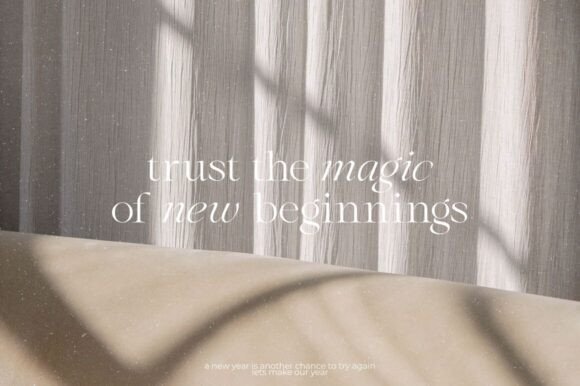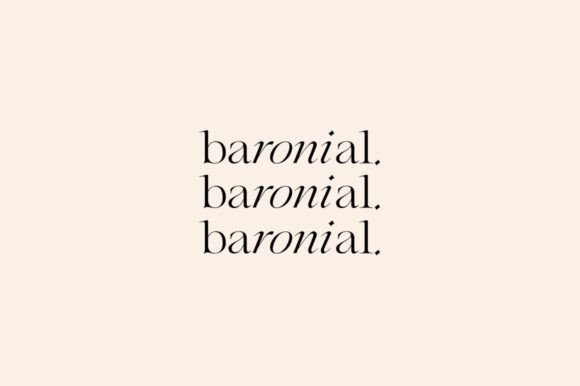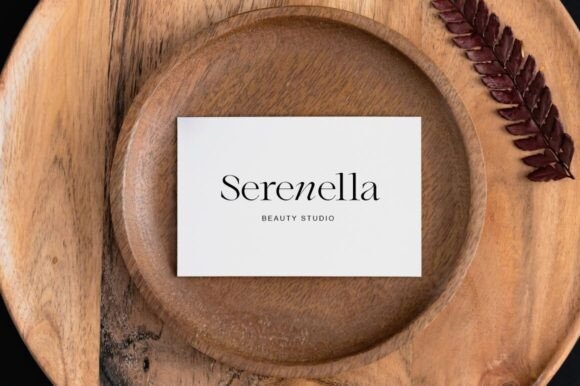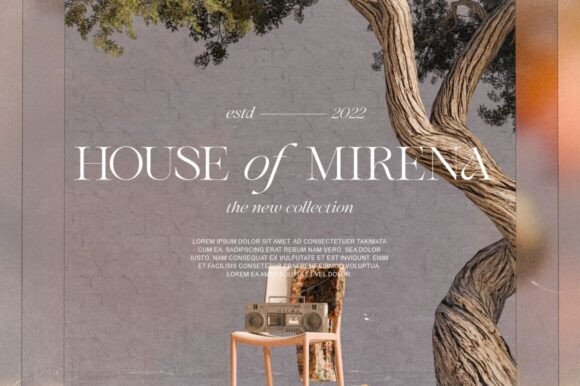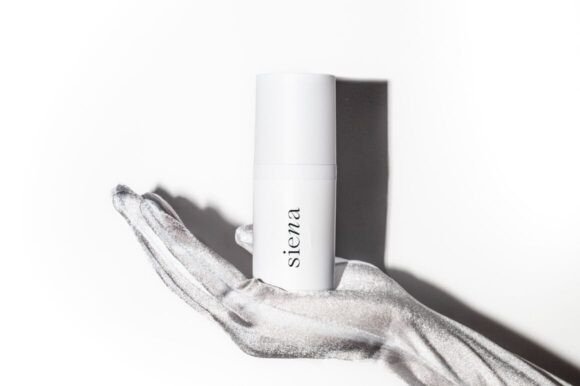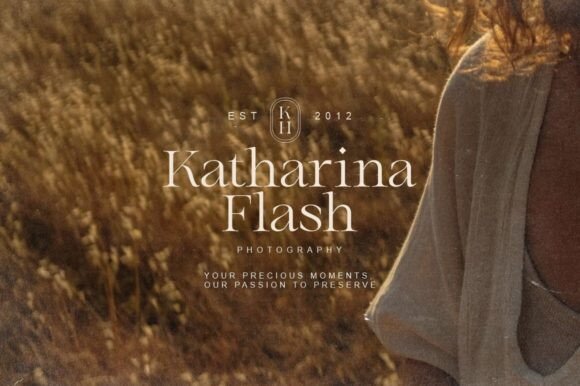
Introducing Araline Font: The Perfect Blend of Classic Charm and Contemporary Style
In the world of typography, fonts play a crucial role in conveying the tone and personality of a brand or design. For designers and crafters, finding the right font can make all the difference in creating visually stunning and effective designs. If you’re on the hunt for a font that exudes elegance, sophistication, and versatility, look no further than Araline Font. In this article, we’ll explore the features and benefits of Araline Font, and why it’s the perfect choice for your next design project.
What is Araline Font?
Araline is a modern serif typeface that seamlessly blends classic charm with contemporary style. This beautiful font is designed to add a touch of elegance and sophistication to any design project. With its classic serif features and modern twist, Araline Font is perfect for designers who want to create unique and visually appealing designs.
Key Features of Araline Font
Araline Font comes with a range of features that make it an ideal choice for designers and crafters. Some of its key features include:
- Italic Version: Araline Font is equipped with an italic version, which adds an extra layer of elegance and sophistication to your designs. The italic version makes the font perfect for creating eye-catching headlines, titles, and emphasis.
- Serif Typeface: Araline is a serif typeface, which means it features small lines or flourishes at the ends of the letters. This classic feature adds a touch of tradition and sophistication to your designs.
- Versatility: Araline Font is incredibly versatile and can be used for a wide range of design projects, including logos, headlines, signage, invitations, labels, magazines, books, greeting cards, packaging, fashion, makeup, stationery, and more.
Why Choose Araline Font?
So, why should you choose Araline Font for your next design project? Here are just a few reasons:
- Elegance and Sophistication: Araline Font exudes elegance and sophistication, making it perfect for designs that require a touch of luxury and refinement.
- Unique and Eye-Catching: With its modern serif features and italic version, Araline Font is sure to make your designs stand out from the crowd.
- Versatility: Araline Font can be used for a wide range of design projects, making it a great addition to any designer’s toolkit.
- Easy to Read: Despite its elegant and sophisticated features, Araline Font is incredibly easy to read, making it perfect for body text and other applications where readability is key.
How to Use Araline Font
Araline Font is incredibly easy to use and can be applied to a wide range of design projects. Here are a few ideas to get you started:
- Logos: Use Araline Font to create stunning logos that exude elegance and sophistication.
- Headlines: Add a touch of luxury and refinement to your headlines with Araline Font.
- Signage: Use Araline Font to create eye-catching signage that grabs attention and makes a lasting impression.
- Invitations: Add a touch of elegance and sophistication to your invitations with Araline Font.
- Packaging: Use Araline Font to create stunning packaging designs that stand out on store shelves.
In conclusion, Araline Font is a beautiful and versatile modern serif typeface that blends classic charm with contemporary style. With its italic version, serif features, and ease of use, Araline Font is perfect for designers and crafters who want to create unique and visually stunning designs. Whether you’re working on a logo, headline, signage, invitation, or packaging design, Araline Font is sure to make your designs stand out from the crowd.